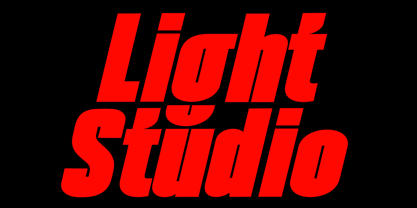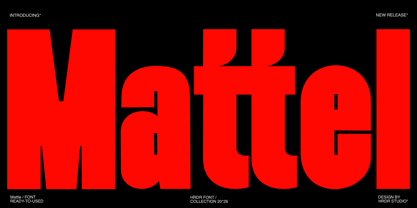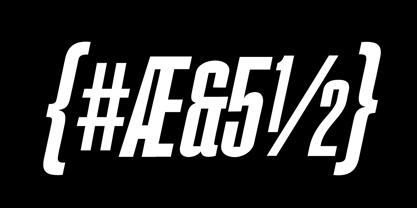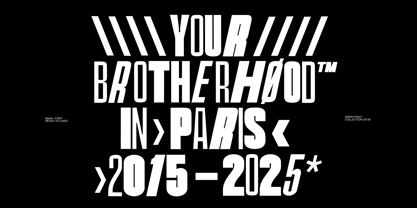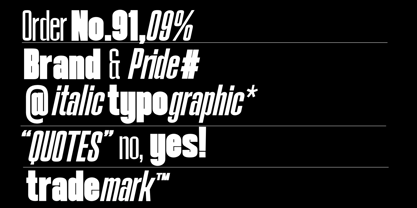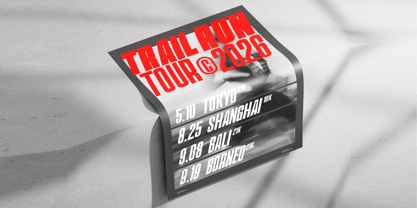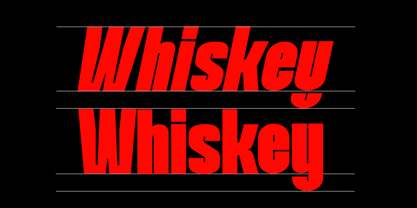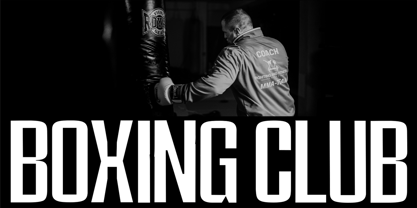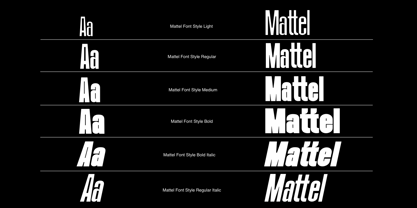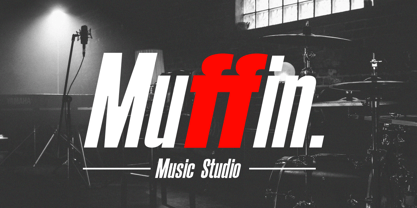
Mattel
The Mattel Font Family was designed by Dede Mulyadi and published by HRDR. Mattel contains 6 styles and family package options. More about this family
Embrace a contemporary aesthetic with Mattel, a versatile type style ideal for logos, branding, film production, and more. Designed as a variable font, it offers five distinct widths, allowing extensive creative flexibility for any project. With Mattel, achieve an elegant yet strong visual identity suitable for various applications, from motion graphics to packaging.